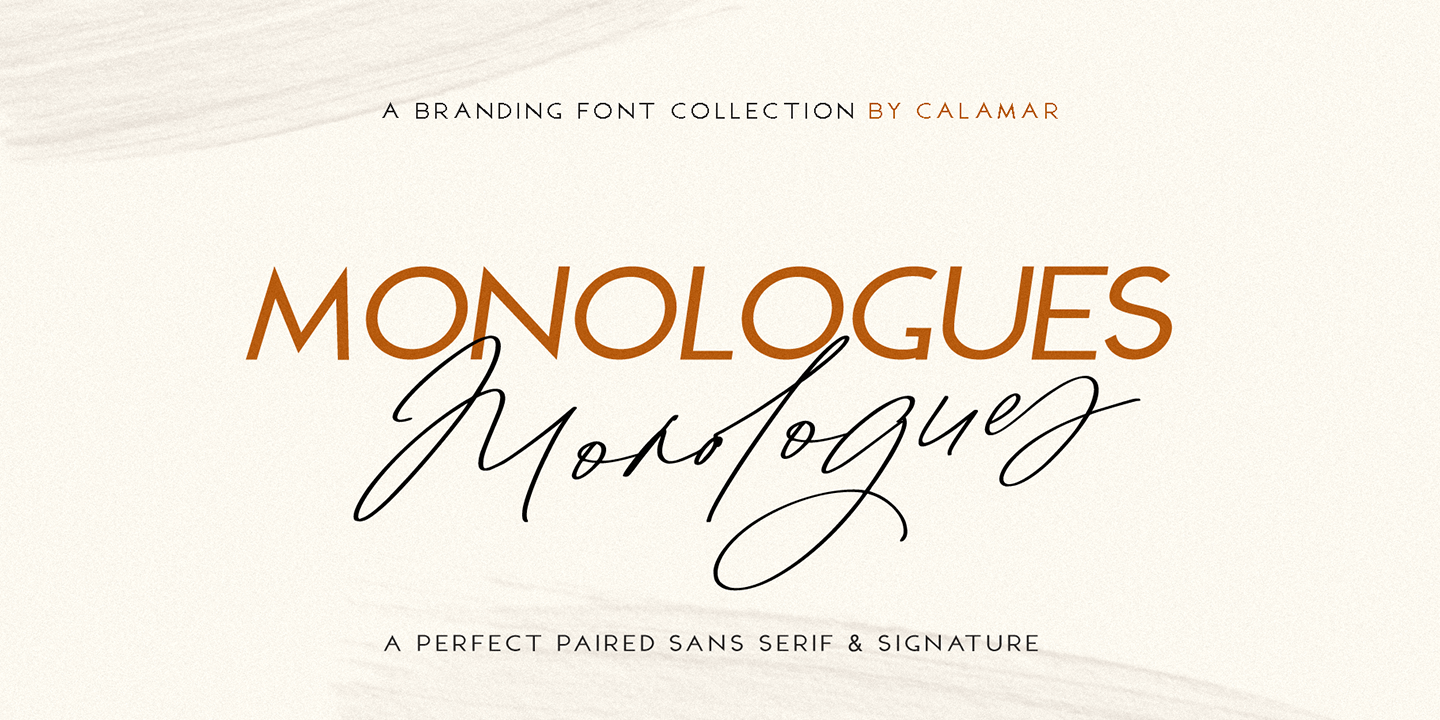
Looking for an elegant and expressive font that tells a story? Monologues Font Free Download is perfect for book covers, theater posters, personal blogs, and any creative project that needs a touch of sophistication and emotional depth. Its flowing lines and artistic strokes give your designs a handwritten, intimate feel that captures attention.
Whether you’re creating a heartfelt message or a striking brand identity, Monologues Font Free Download offers the perfect balance of elegance and personality.